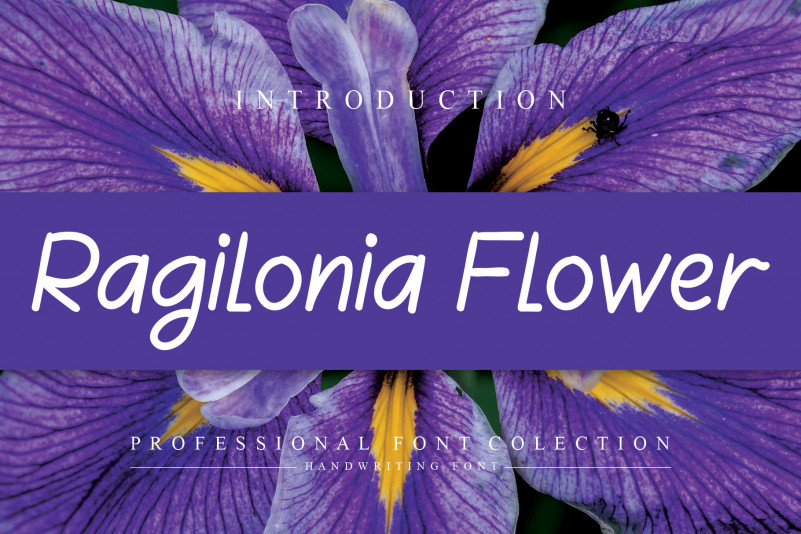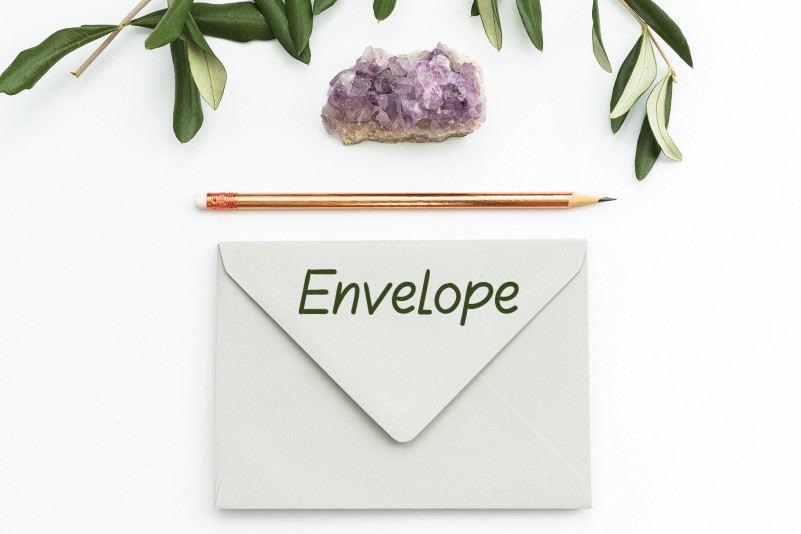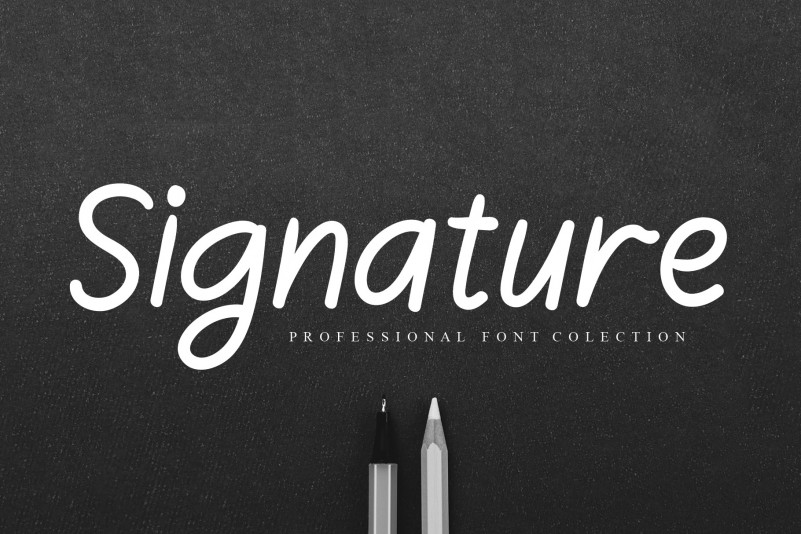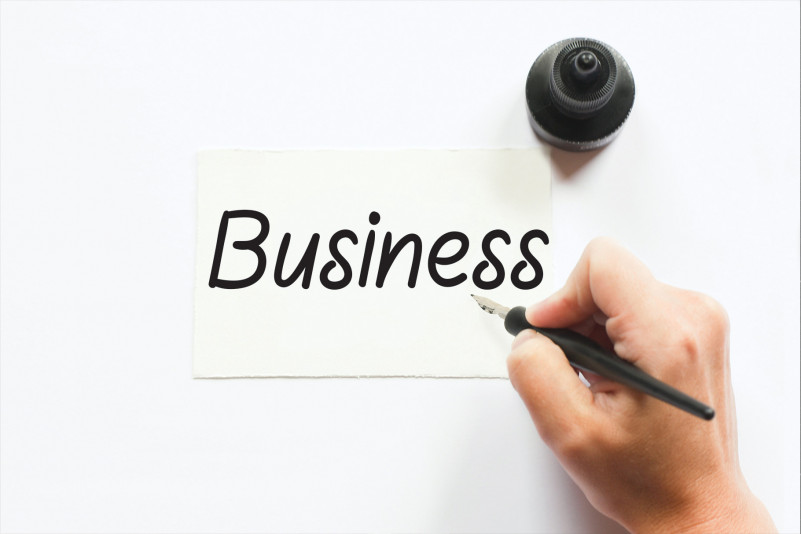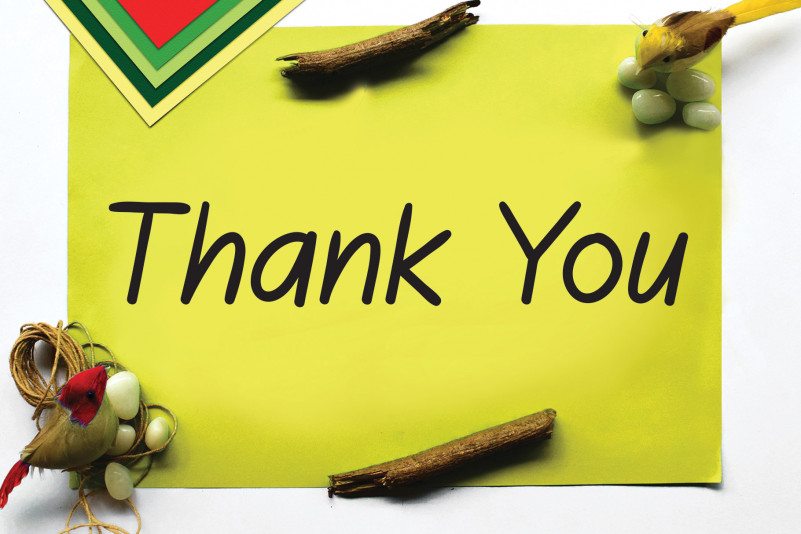
Ragilonia Flower Handwritten Font
Ragilonia Flower Handwritten Font is a cute handwritten font. It will elevate a wide range of design projects to the highest level, be it branding, headings, wedding designs, invitations, signatures, logos, labels, and much more!